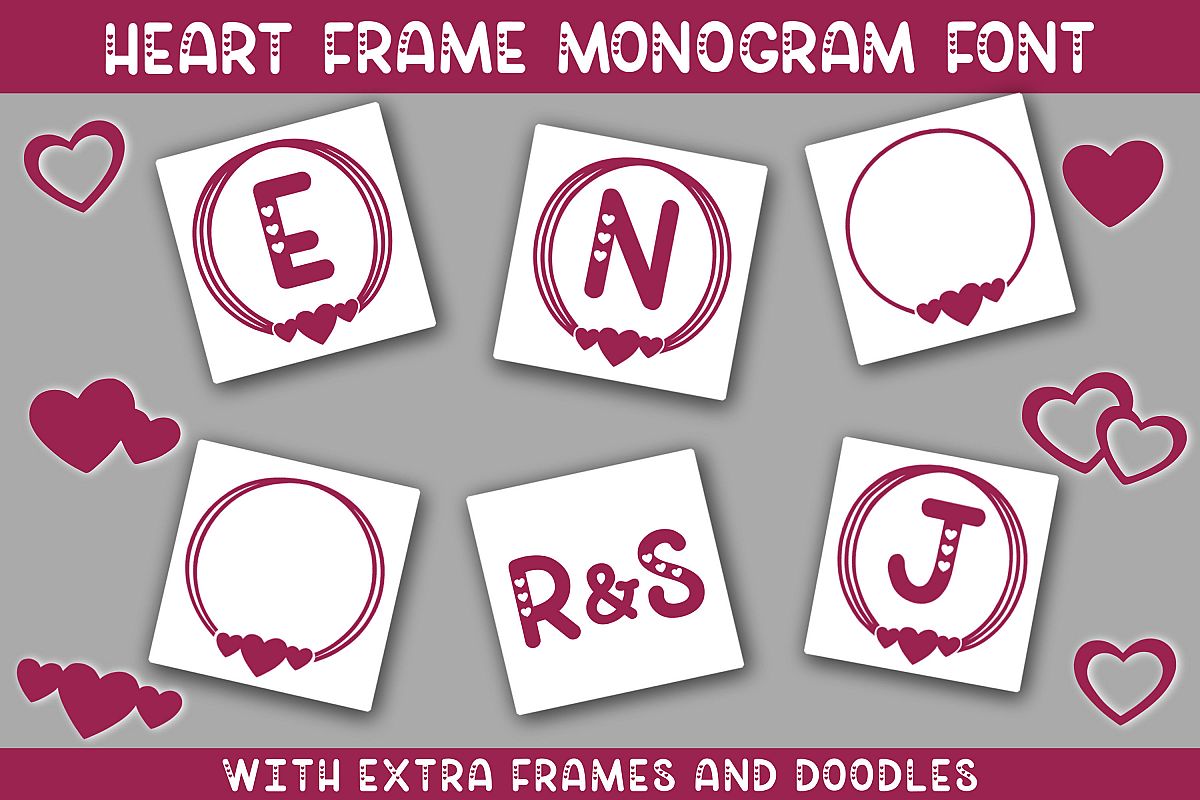
Heart Frame Monogram Font
A monogram font made up of 26 capital letters (framed and unframed), numbers 0-9,  3 heart frames, 5 heart doodles and basic punctuation.